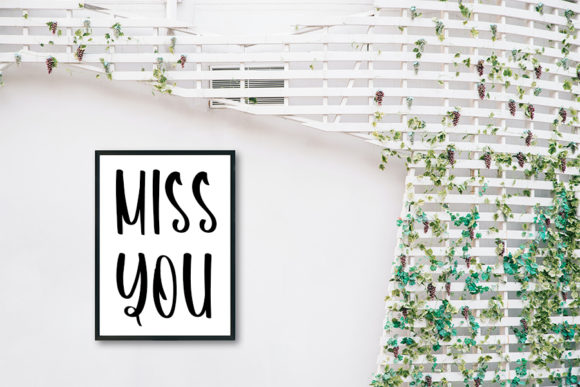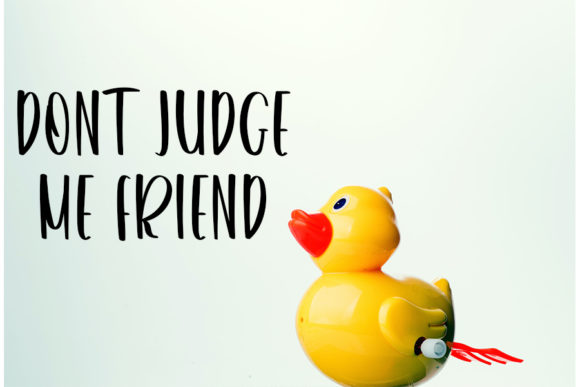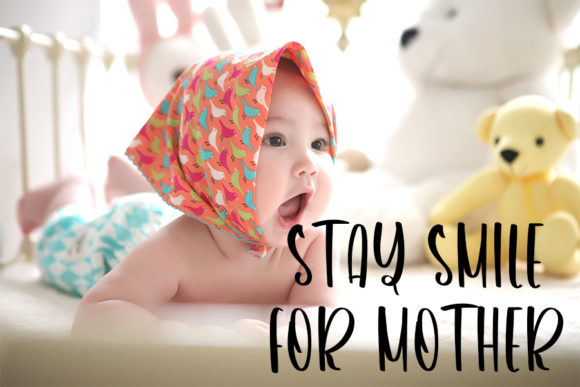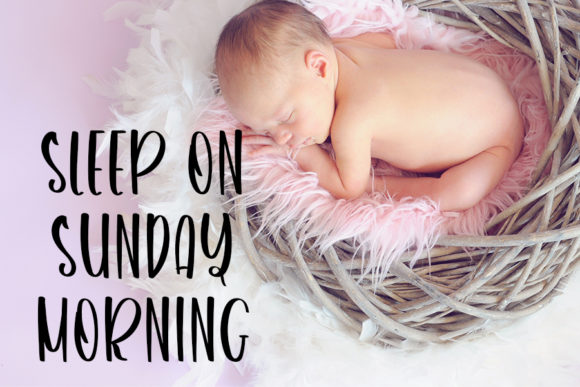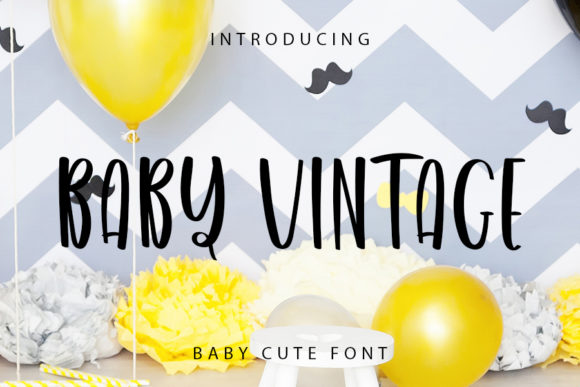
Baby Vintage Font: The Perfect Addition to Your Design Projects
Are you looking for a font that can add a touch of whimsy and quirkiness to your designs? Look no further than the Baby Vintage font. This cool, casual, and relaxed handwritten font is perfect for designers and crafters who want to create unique and eye-catching projects. In this article, we’ll take a closer look at the Baby Vintage font, its features, and how you can use it to elevate your designs.
What is Baby Vintage Font?
Baby Vintage is a beautiful, hand-written font that exudes a sense of casual elegance. Its relaxed and whimsical vibe makes it perfect for a wide range of design projects, from digital graphics to print materials. The font’s quirky and charming personality is sure to brighten up any design, making it a great addition to your font collection.
Key Features of Baby Vintage Font
- Handwritten style: Baby Vintage has a beautiful, handwritten style that gives it a personal and unique touch.
- Cool and casual: The font’s relaxed and casual vibe makes it perfect for designs that require a laid-back feel.
- Whimsical and quirky: Baby Vintage has a playful and quirky personality that will add a touch of whimsy to your designs.
- Easy to read: Despite its casual style, Baby Vintage is easy to read, making it perfect for body text and headlines.
How to Use Baby Vintage Font in Your Designs
Baby Vintage is a versatile font that can be used in a wide range of design projects, including:
- Digital graphics: Use Baby Vintage to create eye-catching social media graphics, blog headers, and digital invitations.
- Print materials: Add a touch of whimsy to your print materials, such as brochures, flyers, and business cards.
- Crafting projects: Baby Vintage is perfect for crafters who want to add a personal touch to their projects, such as handmade cards, scrapbooking, and DIY journals.
Tips for Using Baby Vintage Font Effectively
Here are some tips for using Baby Vintage font effectively in your designs:
- Pair it with bold fonts: Pair Baby Vintage with bold fonts to create a striking contrast and add visual interest to your designs.
- Use it for headlines and titles: Baby Vintage is perfect for headlines and titles, where its whimsical and quirky personality can shine.
- Experiment with colors: Don’t be afraid to experiment with different colors and textures to add depth and interest to your designs.
Why Choose Baby Vintage Font?
So, why choose Baby Vintage font for your design projects? Here are just a few reasons:
- Unique and eye-catching: Baby Vintage is a unique and eye-catching font that will set your designs apart from the crowd.
- Versatile: Baby Vintage can be used in a wide range of design projects, from digital graphics to print materials.
In conclusion, Baby Vintage font is a cool, casual, and relaxed handwritten font that is perfect for designers and crafters who want to add a touch of whimsy and quirkiness to their designs. With its unique and eye-catching style, Baby Vintage is sure to brighten up any design and make it stand out from the crowd. So, why not give Baby Vintage a try and see the difference it can make in your design projects?